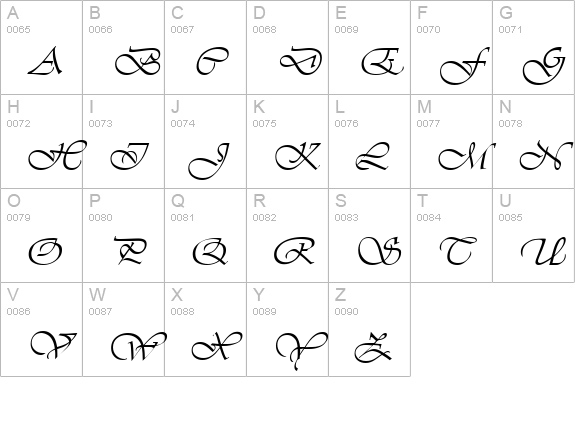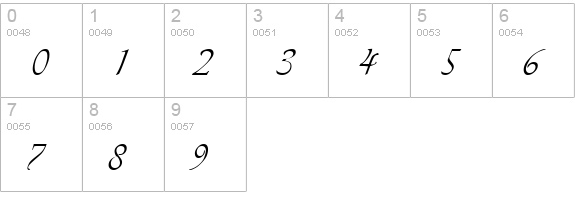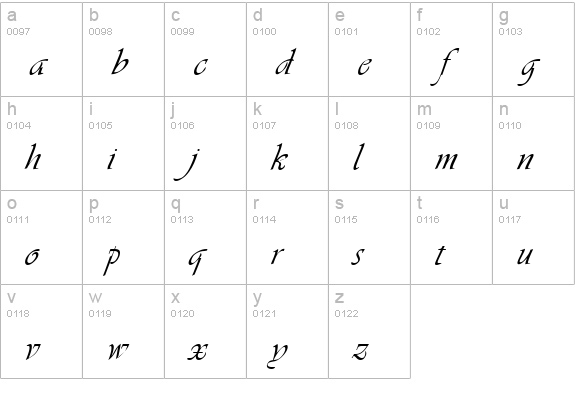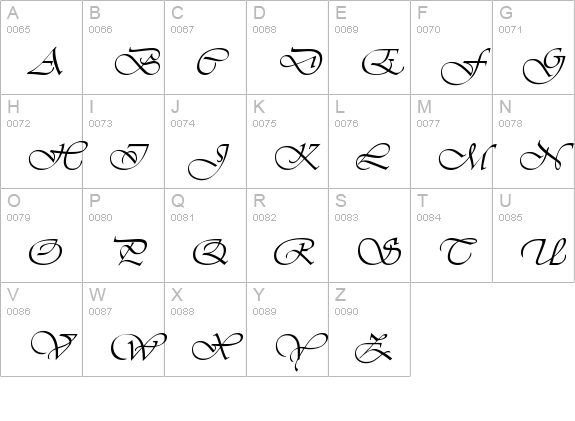
Simone font is a visually striking typeface that combines elegance with modernity. With its clean lines and subtle curves, this font exudes sophistication and charm. Perfect for a variety of design projects, Simone font is versatile and easy to read, making it ideal for both print and digital applications. What sets Simone font apart is that it is completely free to download at FontsMarket.com. This means that you can access this high-quality font without any cost, allowing you to enhance your designs without breaking the bank. Whether you're working on a branding project, a poster design, or a website layout, Simone font is sure to elevate your work to the next level. Download it today and see for yourself the impact it can make on your designs.